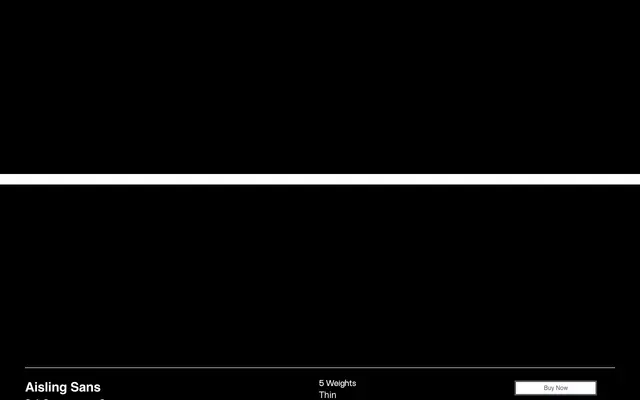
Aisling Sans
A ten-weight contemporary sans with humanist leanings, designed for branding, editorial systems and interface typography across print and digital.
Built on open proportions and controlled spacing, Aisling Sans aims for a calm typographic voice that sits between geometric precision and humanist warmth. The ten-weight family spans Thin to Black with 430 glyphs and coverage across 221 Latin languages, making it practical for multilingual identity and publication work. It is positioned for environments where legibility and tonal restraint matter more than expressive personality.
Described by the foundry as combining modern structural precision with subtle humanist influence and open proportions, placing it in the humanist sans-serif tradition despite geometric tendencies.